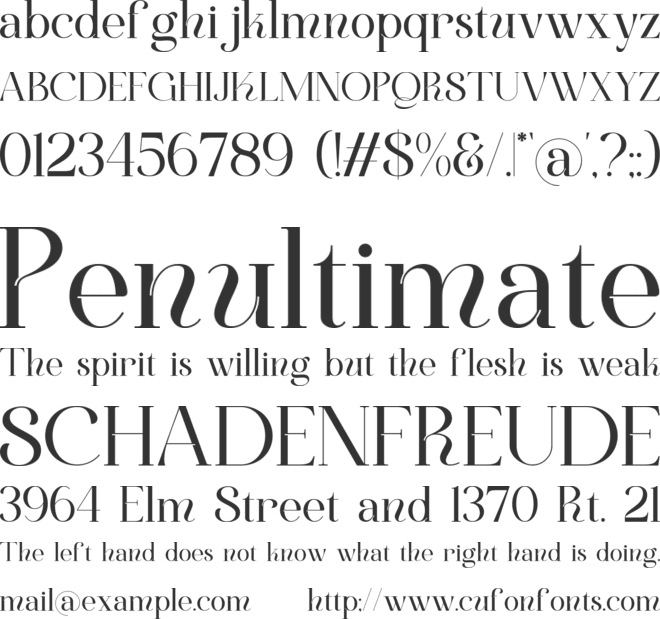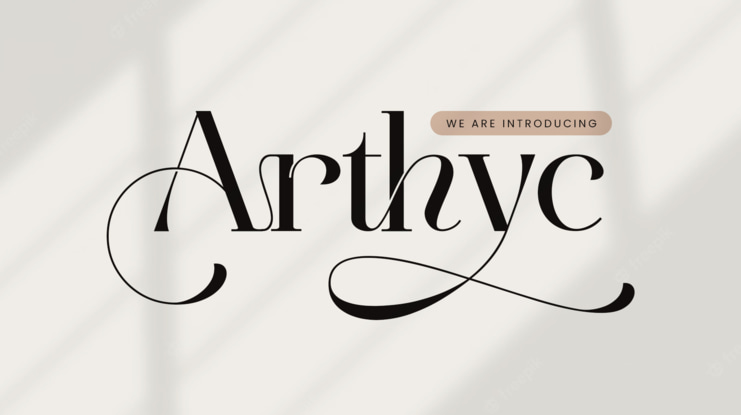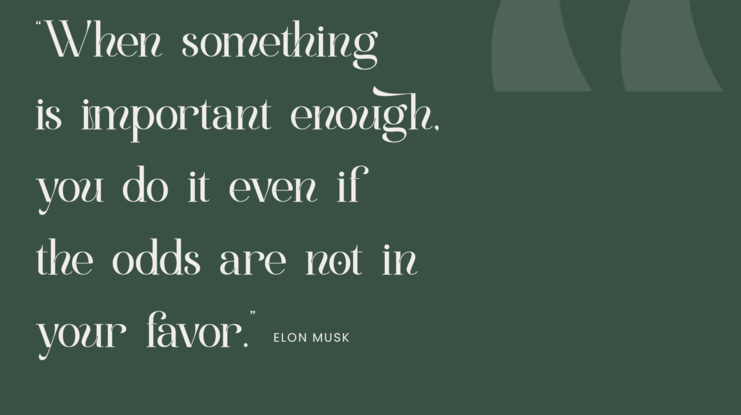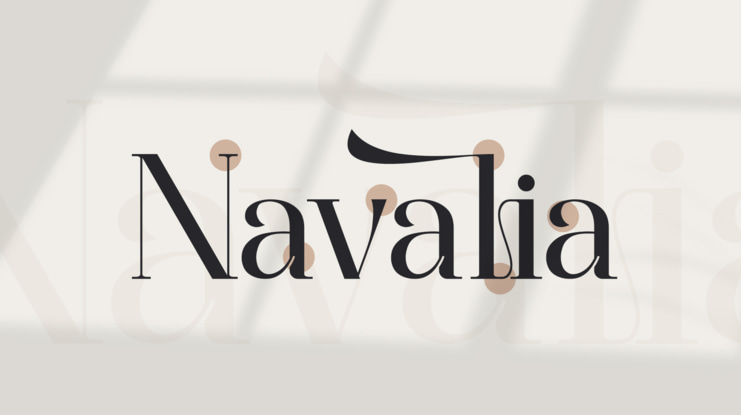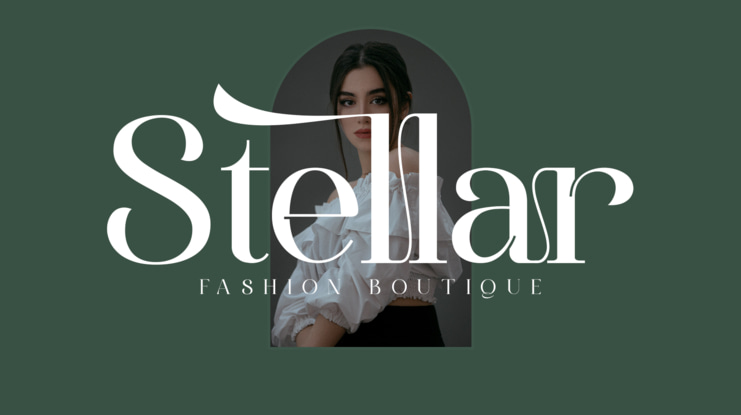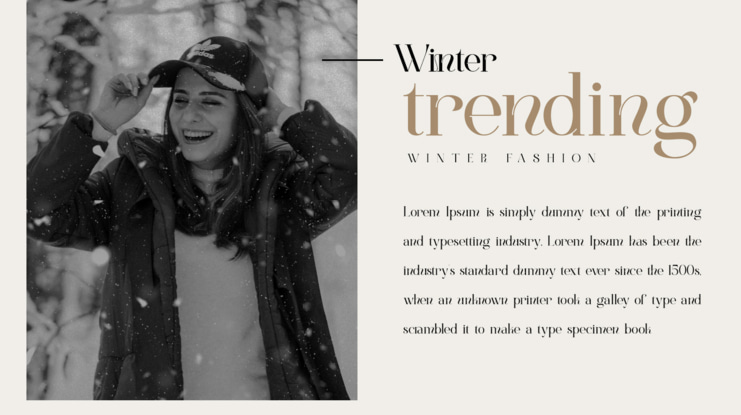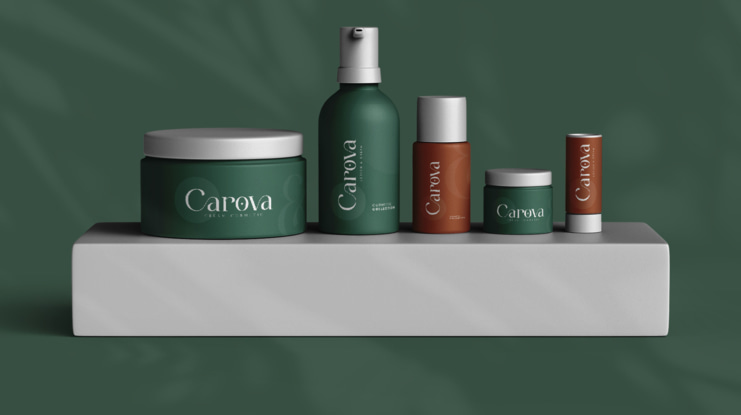
Arthyc Font
Arthyc Serif is a balanced, smooth, elegant and stylish serif font. He has a beautiful character. It fits perfectly with invitation card designs, company logos, movie titles, movie names, business cards, book titles, brand names and various other designs. Arthyc Serif is a subtle serif font that exudes sophistication and elegance. Its stylish alternations and ligatures make this font the perfect partner for any project.
FEATURE :
- Ligature
- Uppercase and lowercase
- Numbering and Punctuation